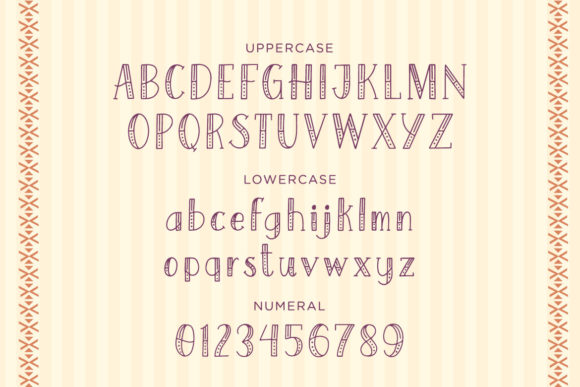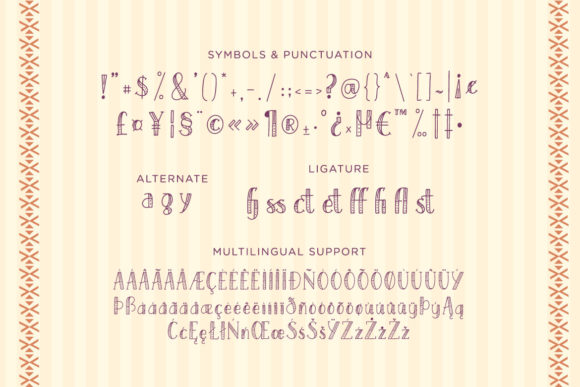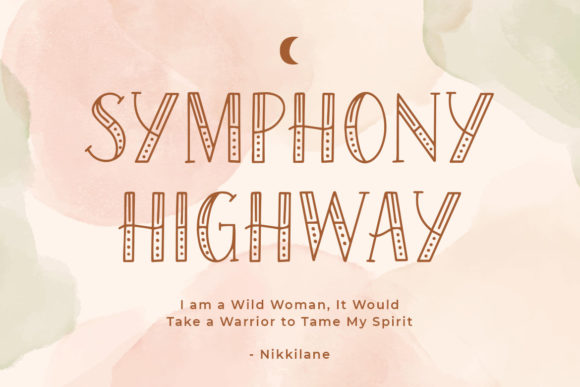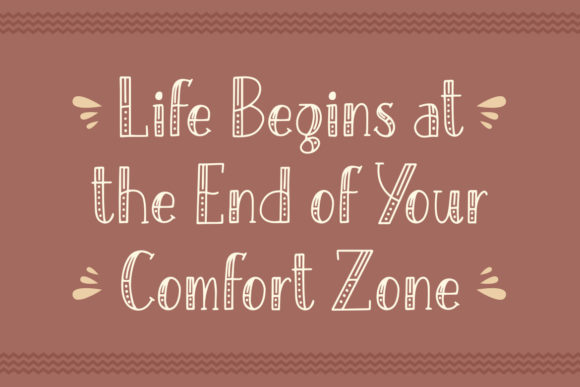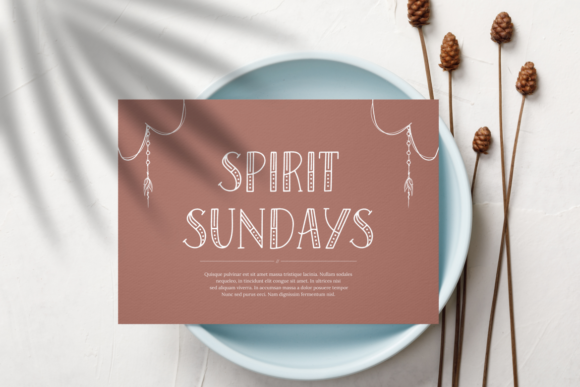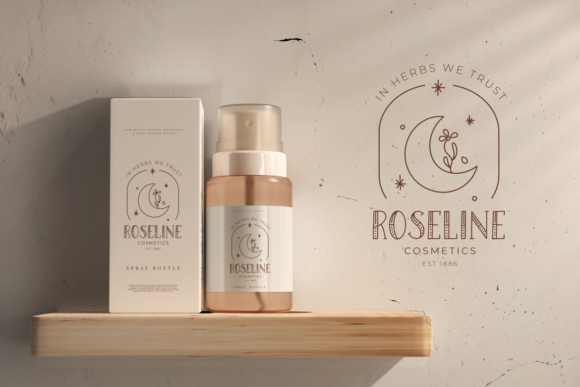
Introduction to Monde Font
Monde is a fun and friendly display font.
It has a modern yet whimsical style and it will undoubtedly immerse your designs into a magical world .
Key Features of Monde Font
Why Choose Monde Font?